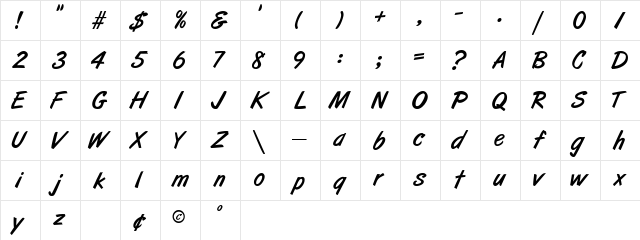
SantguayScriptSSK Regular
Design Context for SantguayScriptSSK Typeface
SantguayScriptSSK flows with the natural rhythm of handwritten lettering, making it ideal for designs that call for warmth and personal expression.
Font Pairing: Combine SantguayScriptSSK with a simple geometric sans for maximum contrast — the tension between flowing curves and clean structure is a classic typographic pairing.
Pro Tip: Pair SantguayScriptSSK with a clean sans-serif for supporting text. The contrast between fluid script and geometric structure creates an elegant typographic hierarchy.